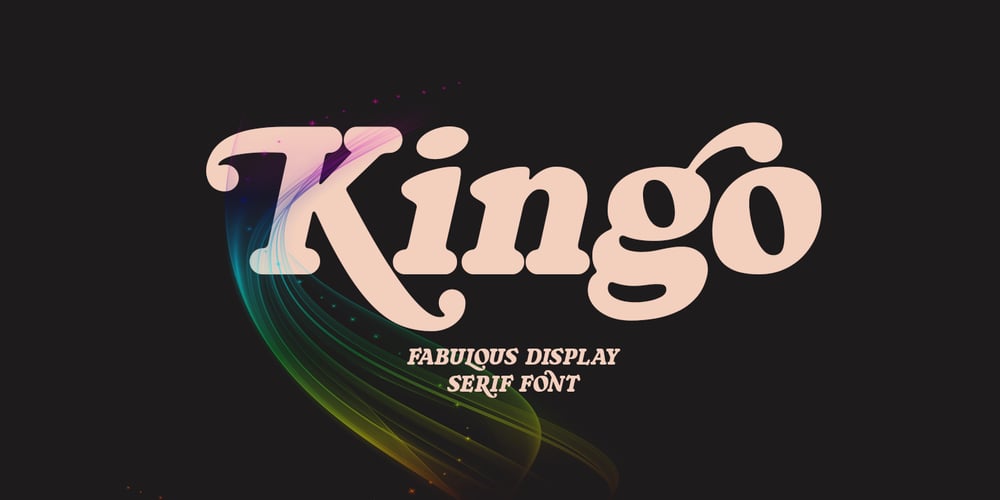
Kingo Font Family was designed by Ibnu Utomo and published by Omotu. Kingo contains 1 styles and family package options. Kingo is fabulous display serif font with retro look. Comes with stylish uppercase alternates and ligatures. Great for logotype, branding, packaging design, poster design, website/display, editorial, headline, advertising, and more.Whats Include?1. Opentype support2. Multilingual support3. PUA encoded4. Features: Uppercase, lowercase, numerals, punctuations, alternates, ligatures, and swashes.5. Accessible in the Adobe Illustrator Glyphs panel, or under Stylistic Alternates in the Adobe Photoshop OpenType menu, Adobe InDesign, Corel Draw, even work on Microsoft WordPlease message me if you’re unsure of any language support.Thanks for looking, and I hope you enjoy it! Please don’t hesitate to drop me a message if you have any issues or queries.